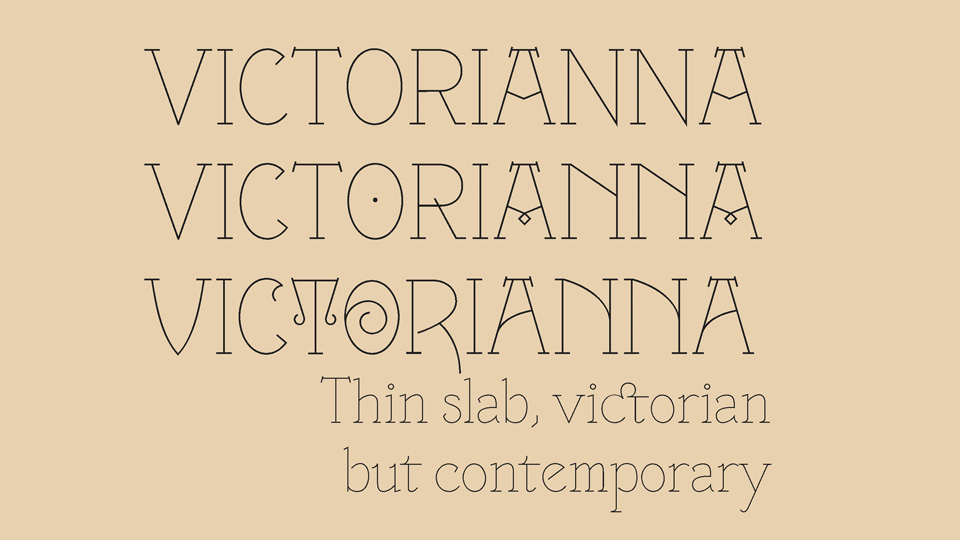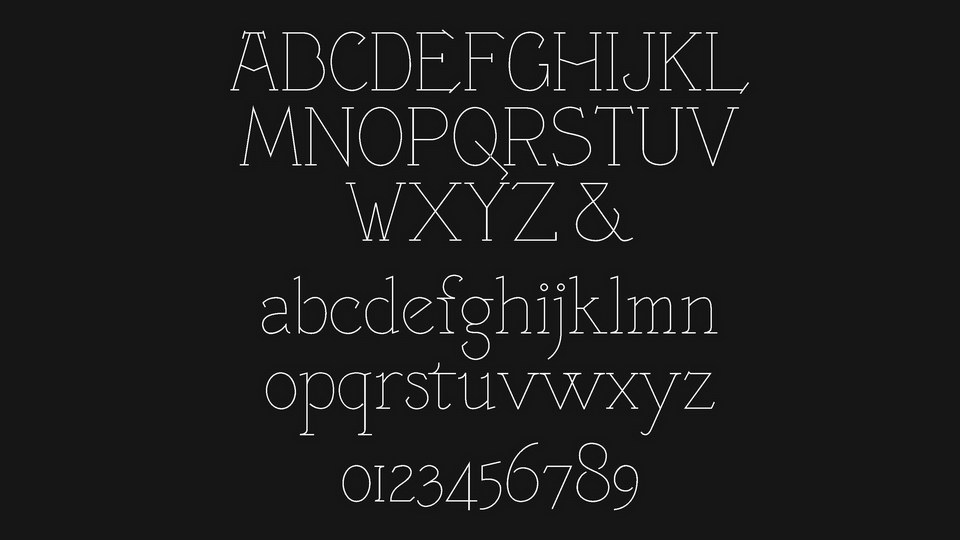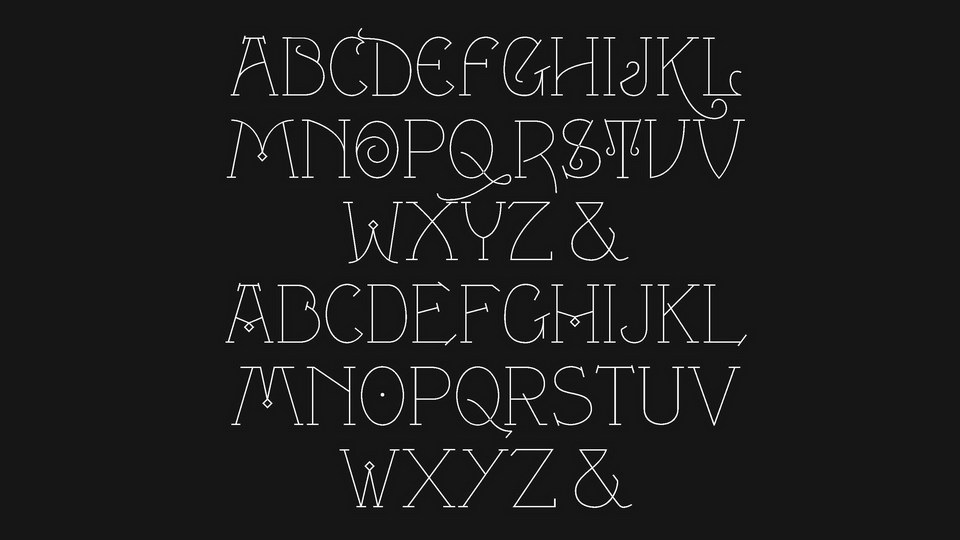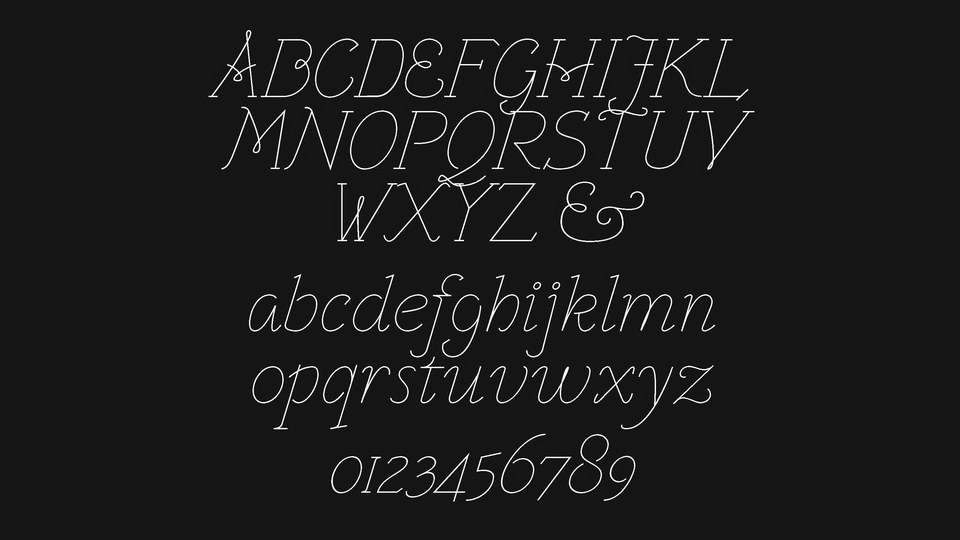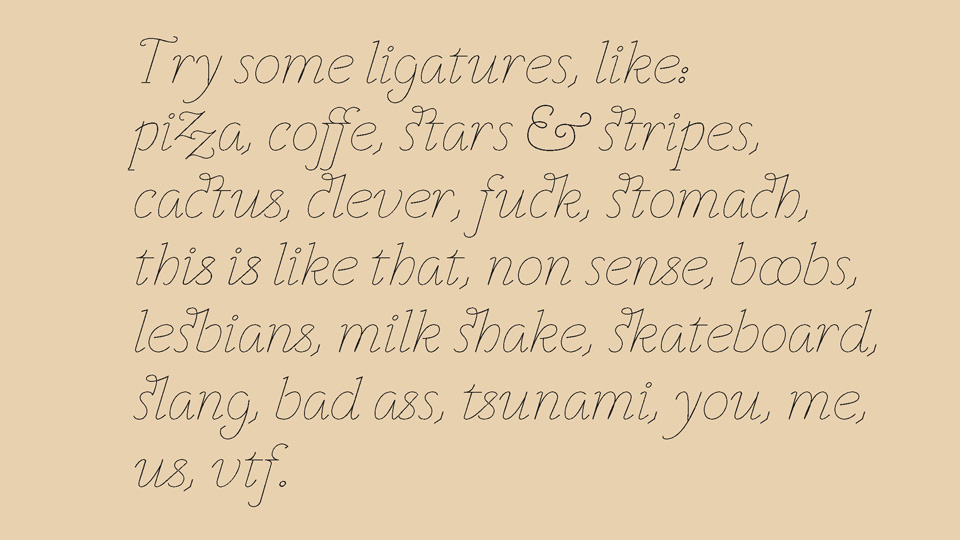
Victorianna is a thin Roman & Italic font, inspired by english victorian types. Thin Roman includes 3 titling styles on caps, ligatures on lower cases. Thin Italic contains many ligatures on lower cases.
Victorianna font originally drawn by Sébastien Hayez, then developed by Jérémy Landes.